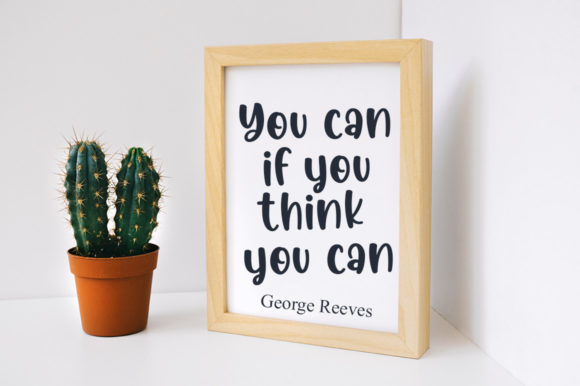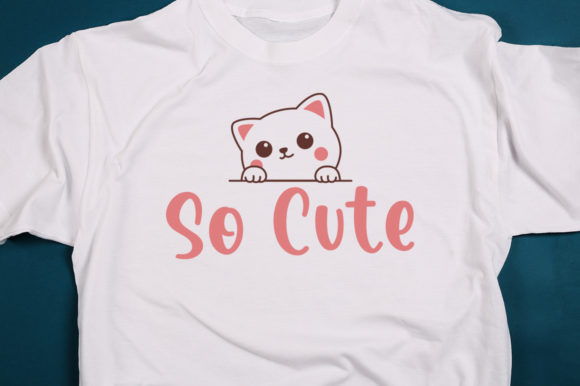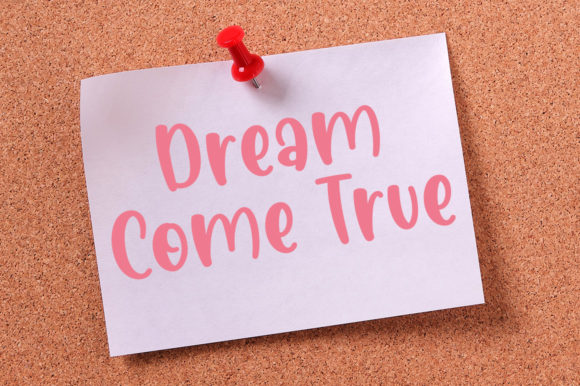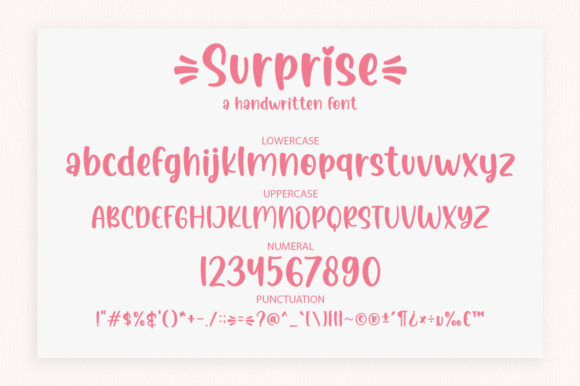
Surprise Font
About Surprise Font
Surprise is a delicate and simple-lettered handwritten font, perfect for all the chalkboard quotes and teaching materials you wish to create! Its authentic look will add a personal and realistic feel to your designs. Fall in love with it and bring your projects to the highest levels!